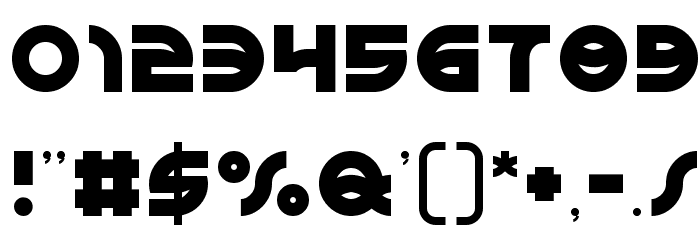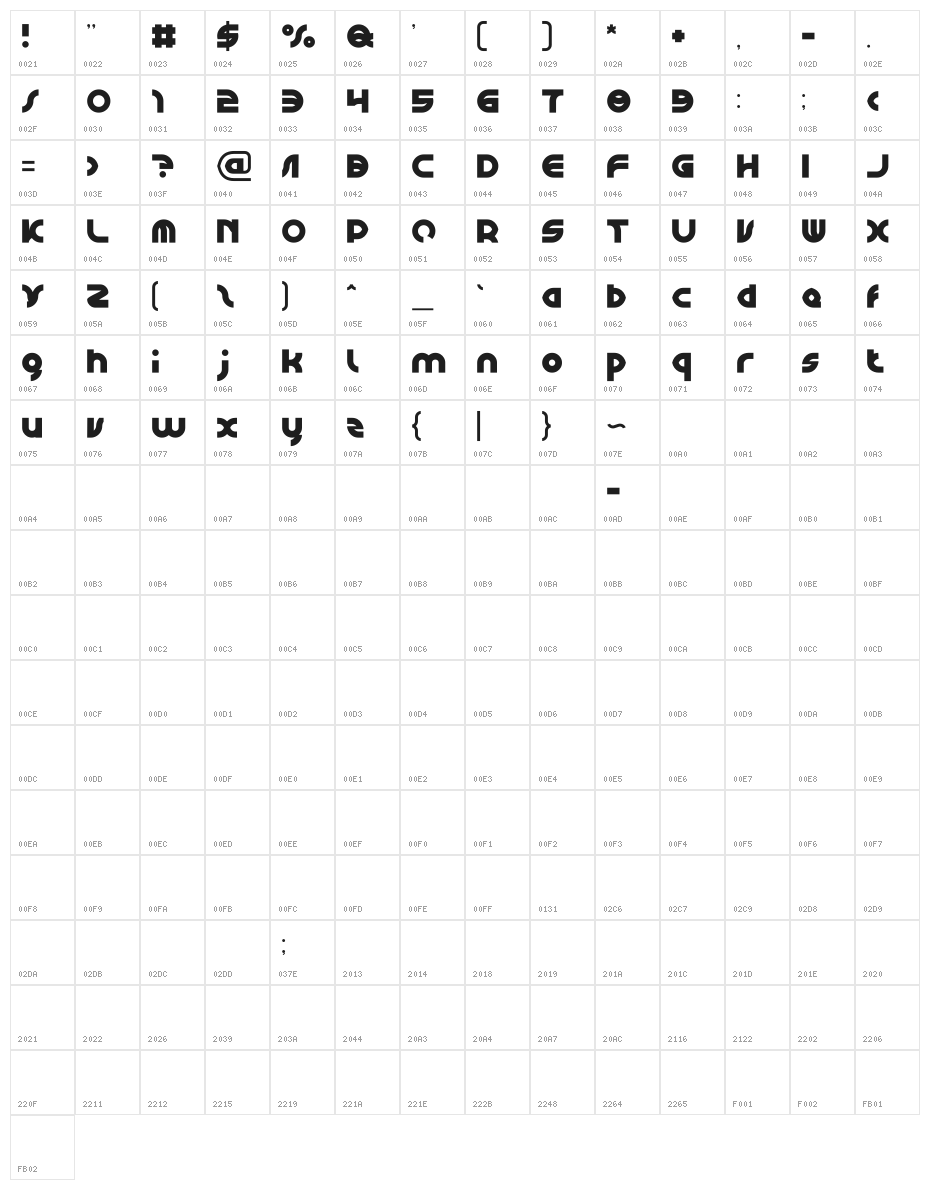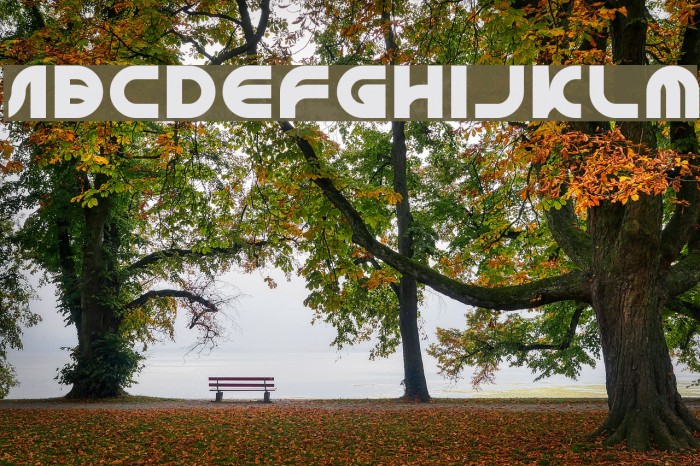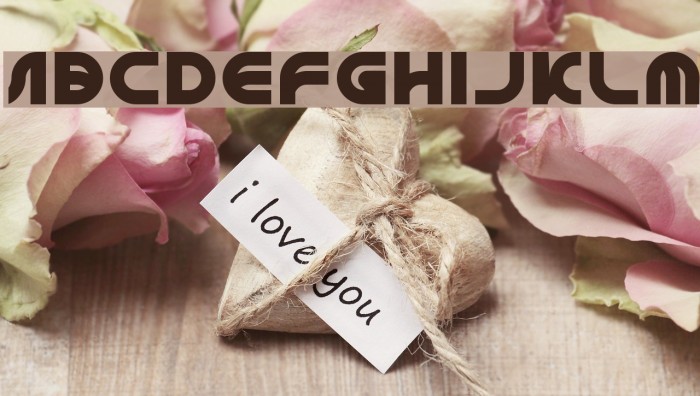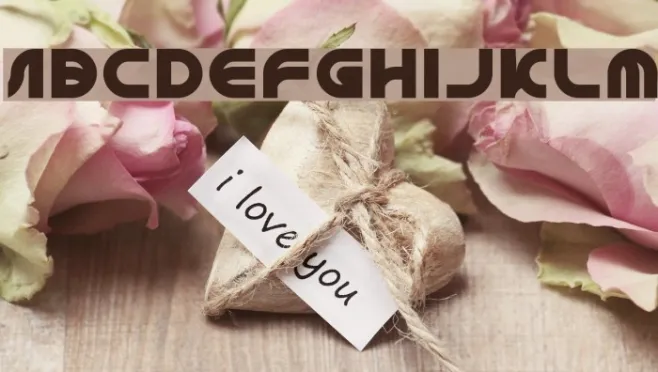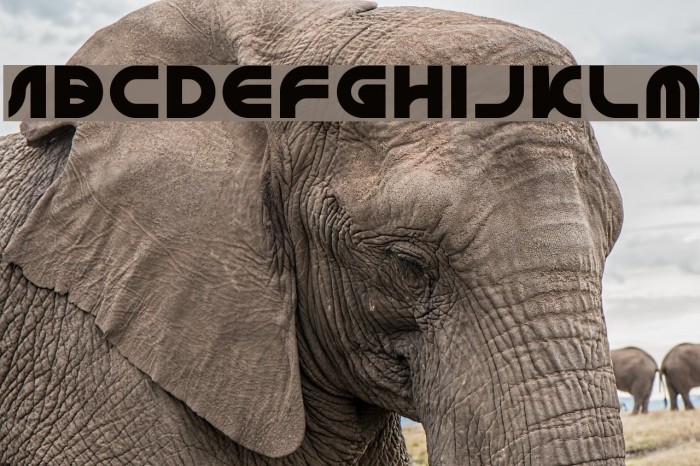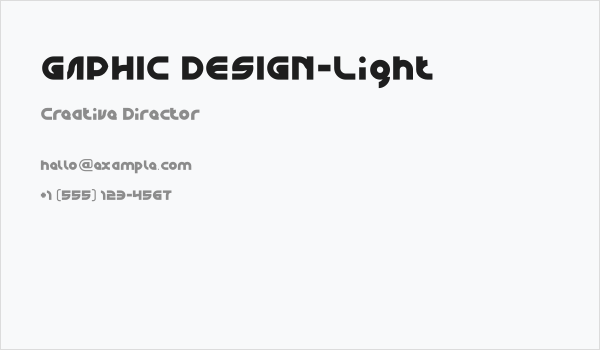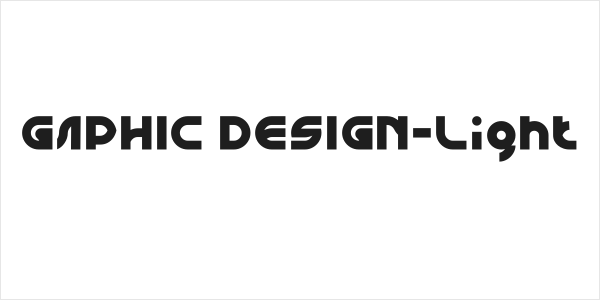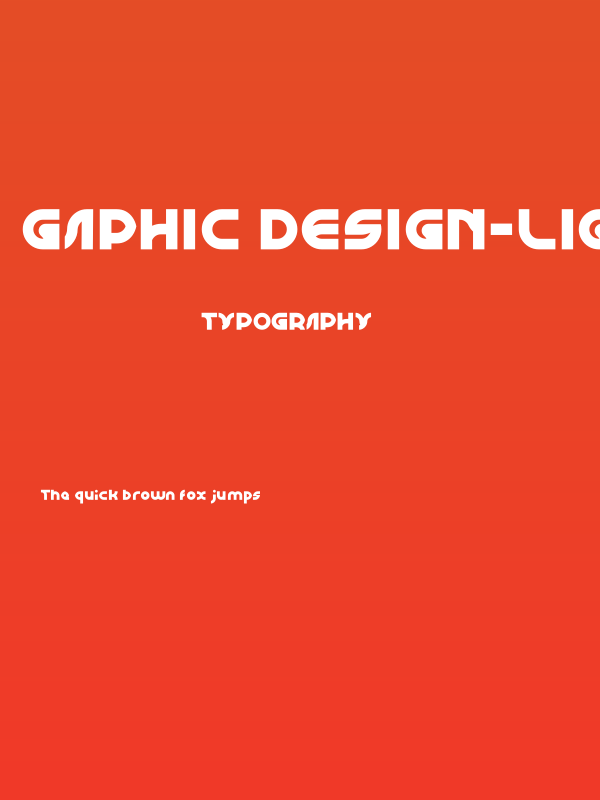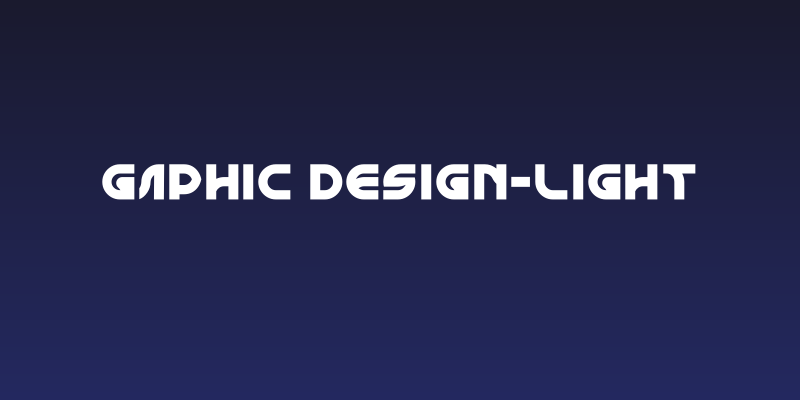
GAPHIC DESIGN-Light Font
GAPHIC DESIGN-Light Description
This font features a bold and geometric design with a futuristic flair. The characters are constructed with thick, uniform strokes and rounded edges, giving them a modern and sleek appearance. The uppercase letters are particularly striking, with a consistent height and width that create a strong visual impact. The lowercase letters maintain the same boldness, ensuring readability while adding a touch of uniqueness with their slightly more rounded forms. Numbers and special characters follow the same design principles, making them cohesive with the alphabetic characters. The overall style is both modern and decorative, suitable for projects that require a bold statement.